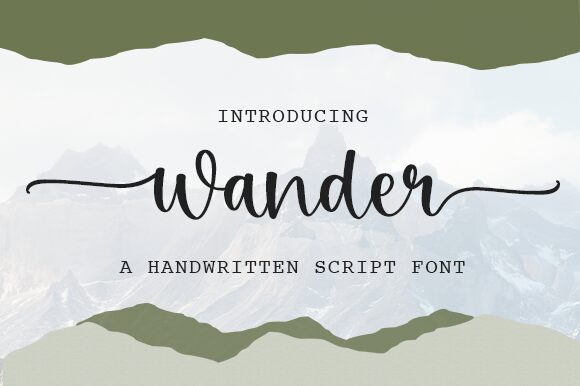
Wander, the lovely handwritten script font by Graphix Line Studio, exudes a playful and whimsical charm that's perfect for adding a touch of personality to any project. Its fluid lines and organic curves lend themselves well to wedding invitations, greeting cards, and other sentimental designs. This semi-bold typeface is versatile enough to be used in a variety of settings - from fashion blogs to food magazines - making it an excellent choice for creatives looking for something unique and eye-catching. So why not let your words wander with Wander?
Wander